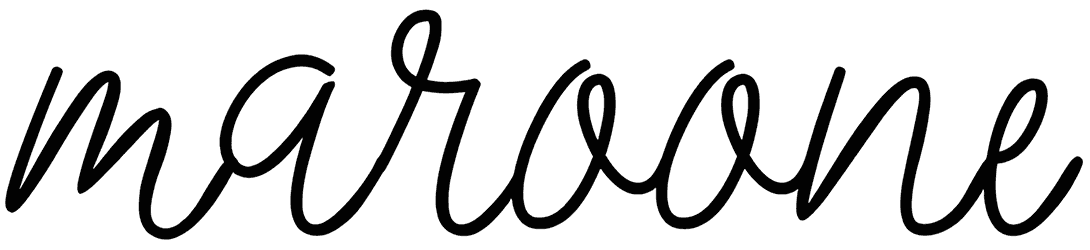
Maroone Font
When you look at the Maroone font, its elegant style immediately grabs your attention. This script font has a striking form, however challenging to read. Besides, you may use it in several situations, such as magazines, postcards, and brochures, while it does not contain capital letters, numbers, and punctuation marks.
This handwritten font’s letters are designed with thin lines and soft, rounded edges, creating a pleasant vibe. So download Maroone to shine in front of your viewer’s eye.